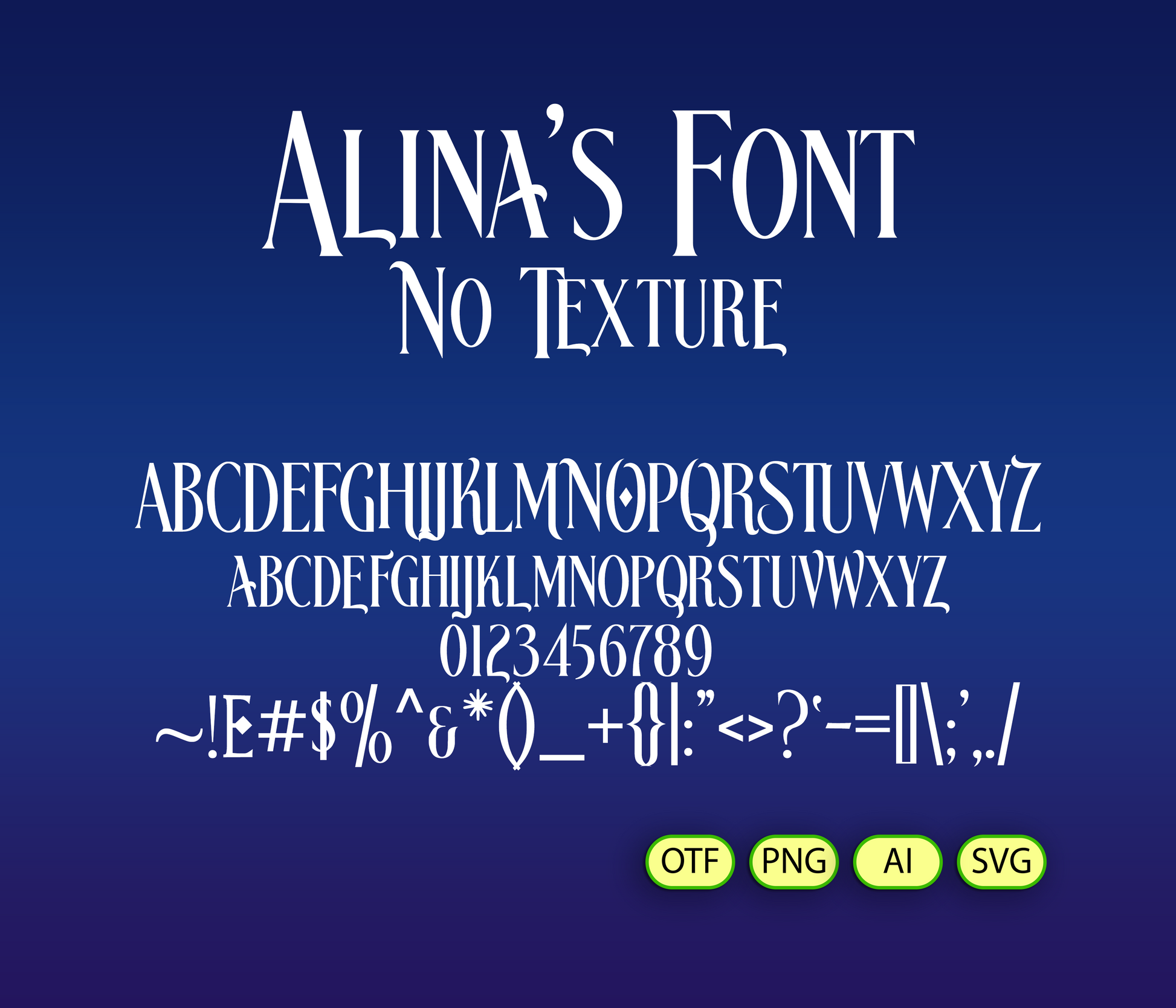
Enchanted Forest Fairy Tale Font
Enchanted Forest Fairy Tale Magic Style
Step into the whimsical world of woodland wonder and storybook enchantment with our Enchanted Forest font, capturing the essence of magical kingdoms and fairy tale dreams. Perfect for children's book creators, fantasy designers, storybook enthusiasts, and creative professionals, this font brings the innocent, magical spirit of woodland fairy tale adventures to your projects. Create charming invitations, fairy tale-themed merchandise, or digital content with the pure, enchanting energy of magical forest tales.
Our Enchanted Forest font features delicate, whimsical strokes and fairy tale characters reflecting the beautifully innocent yet magical aesthetic of storybook woodland scenarios. Ideal for:
- Children's Events: Create attention-grabbing invites, posters, and banners for fairy tale parties, princess-themed experiences, and magical gatherings
- Storybook Design: Perfect for book covers, fairy tale promotions, and enchanted-themed accessories that capture magical forest essence
- Digital Media: Enhance websites, blogs, and social media with whimsical headers and graphics that express wonder and fairy tale magic
- Entertainment Content: Add authentic character to children's materials, fairy tale designs, and promotional materials for magical events
- Personal Projects: Bring enchanting charm to scrapbooking, DIY crafts, and home decor inspired by the aesthetics of magical forests